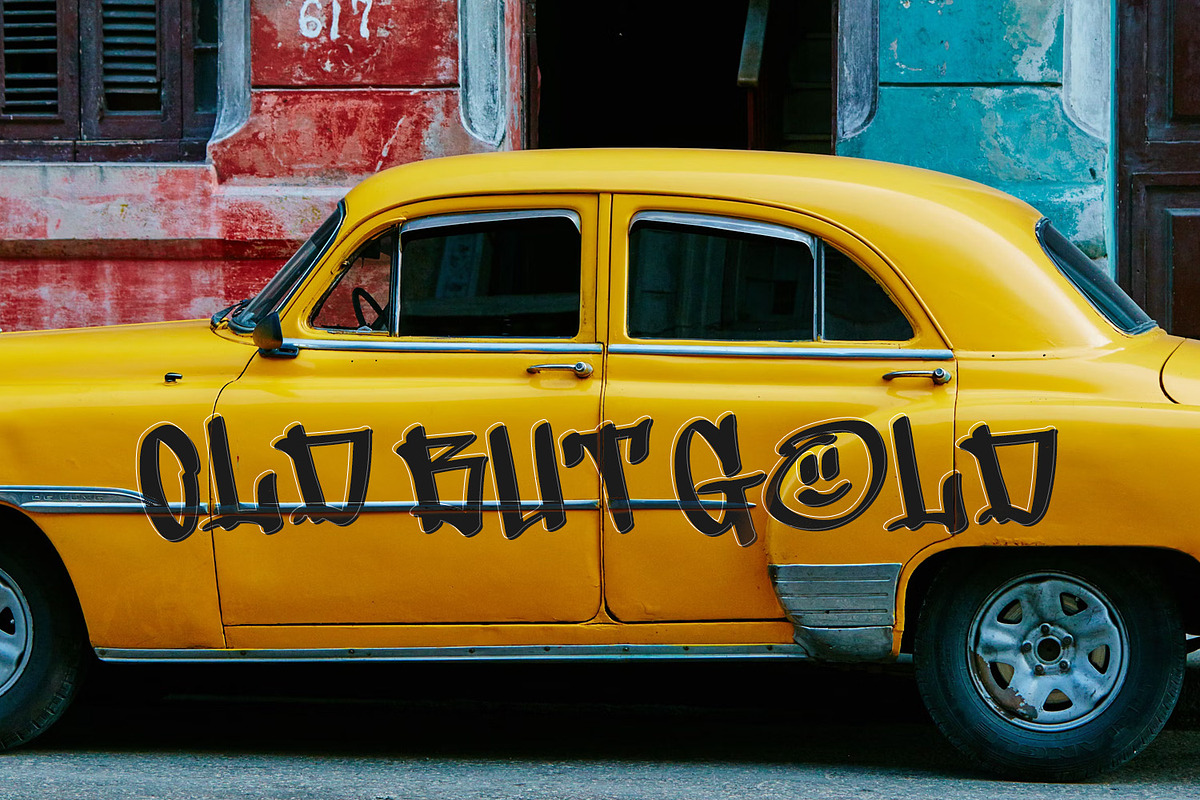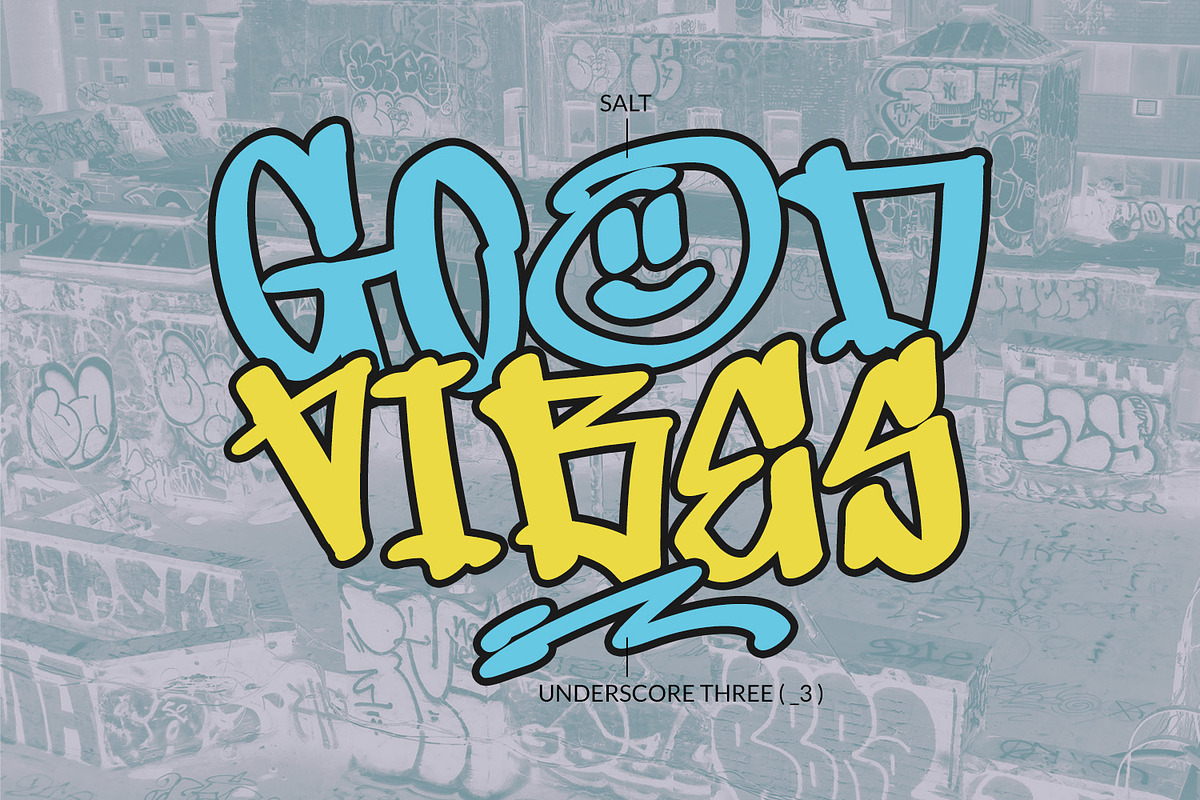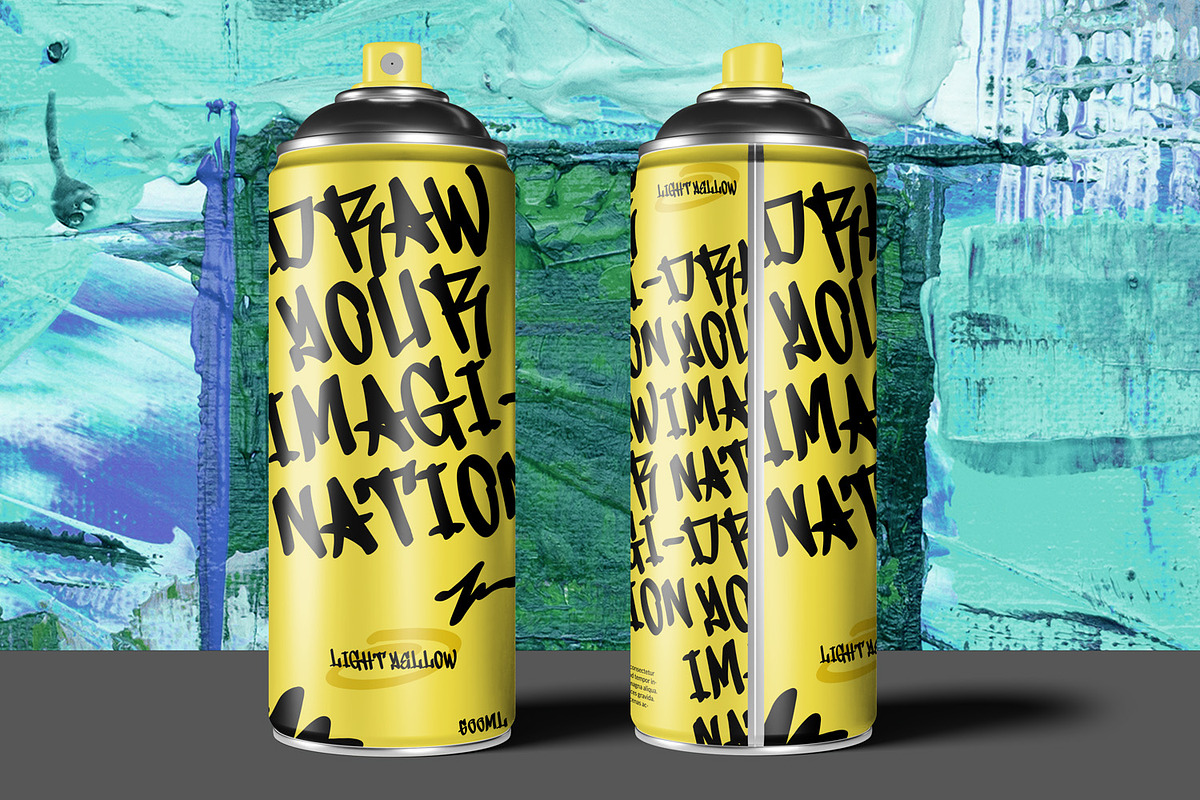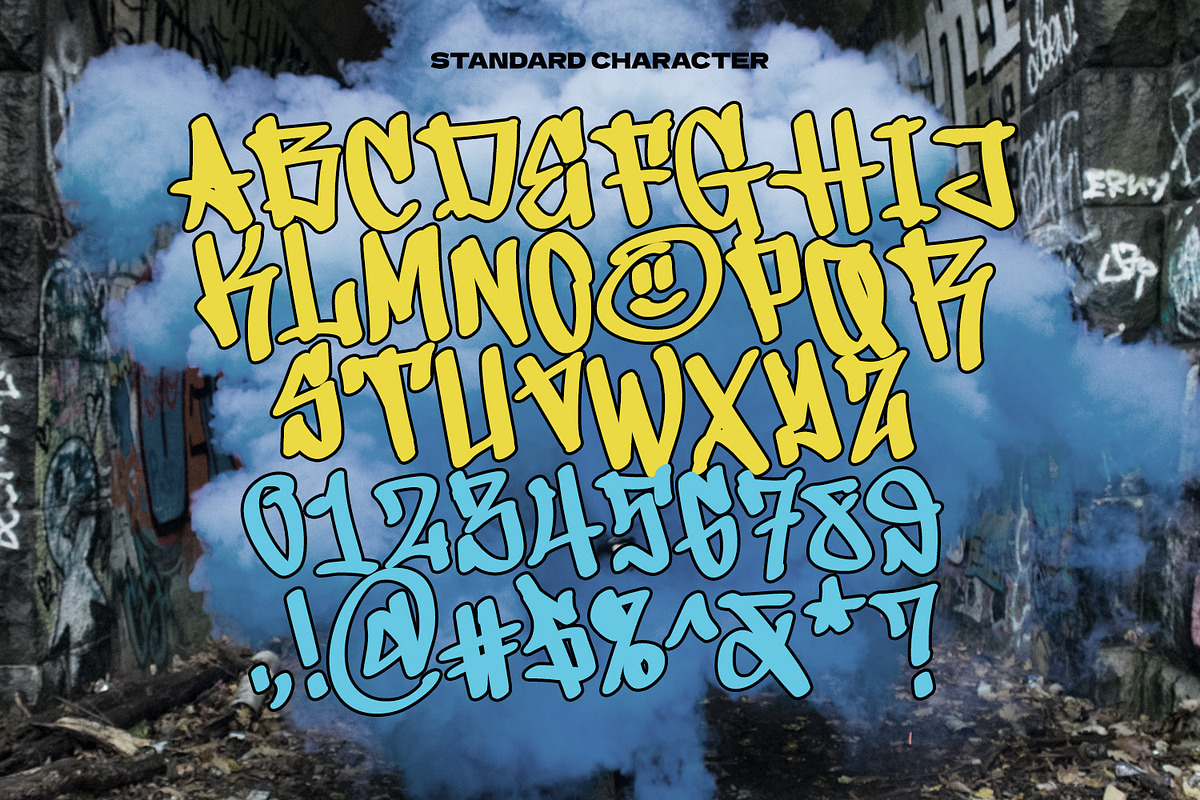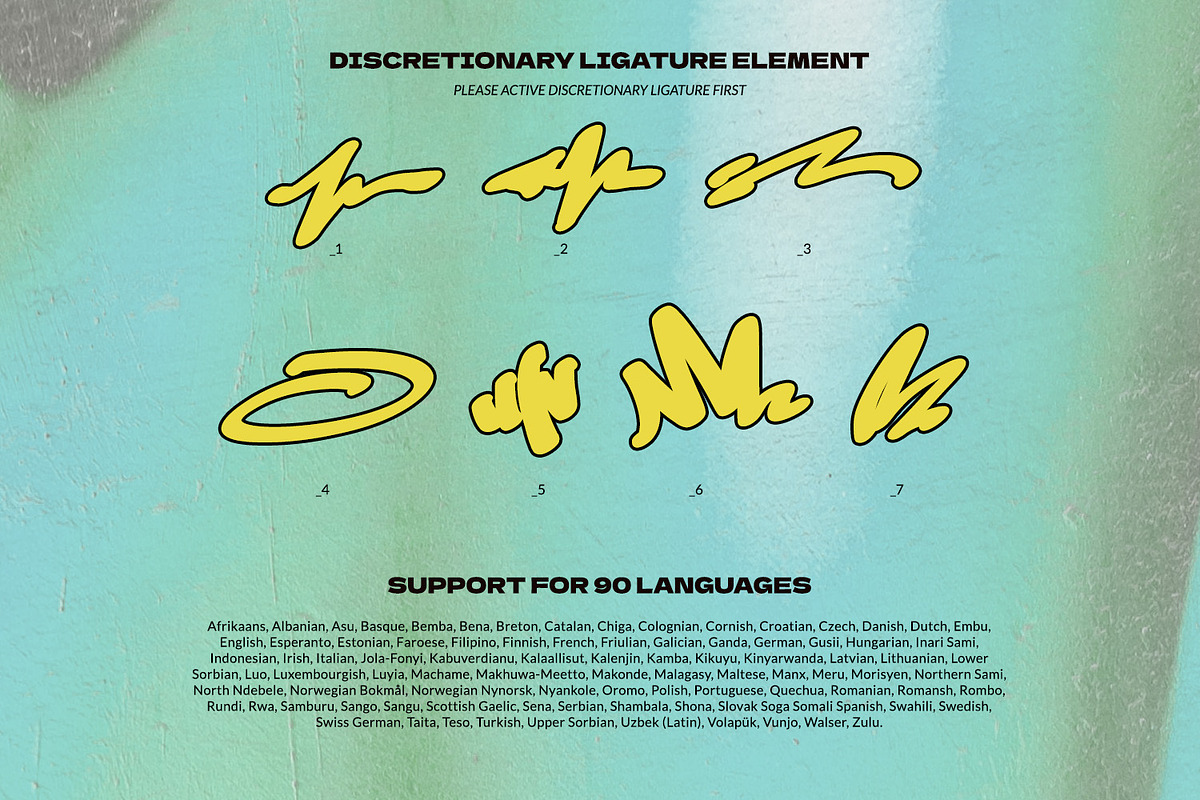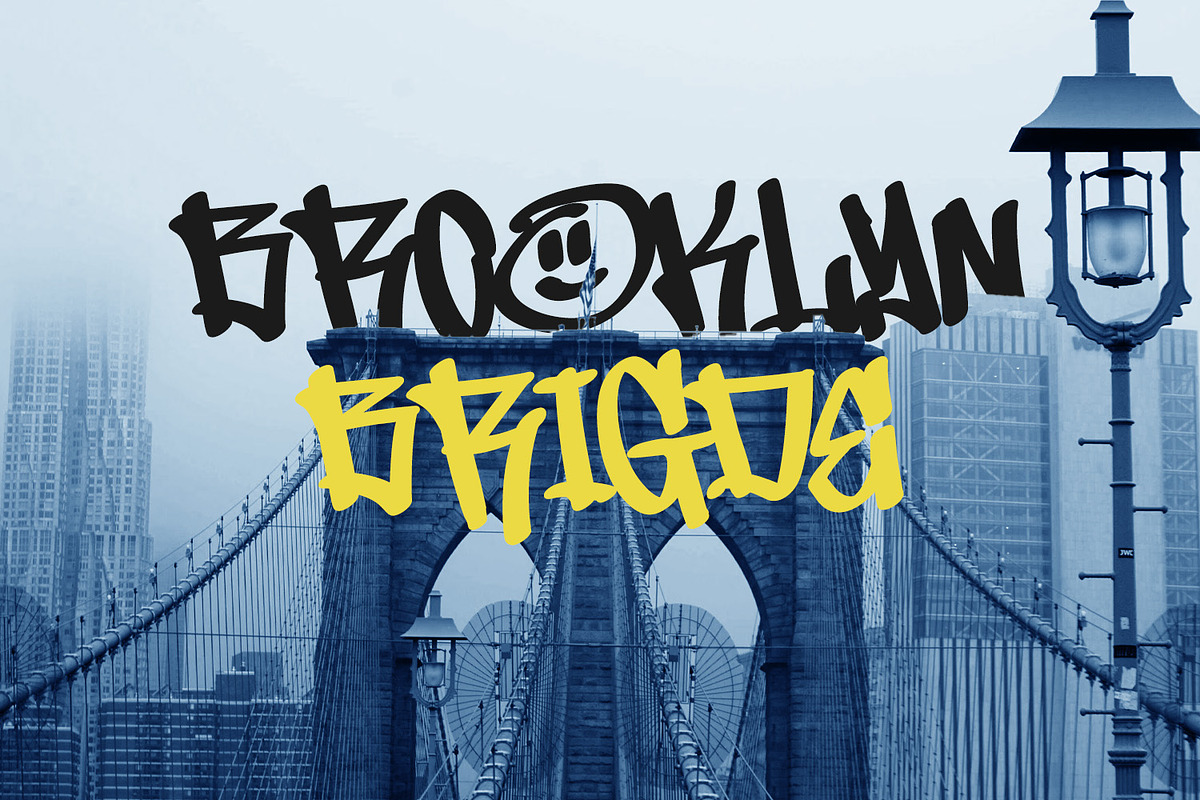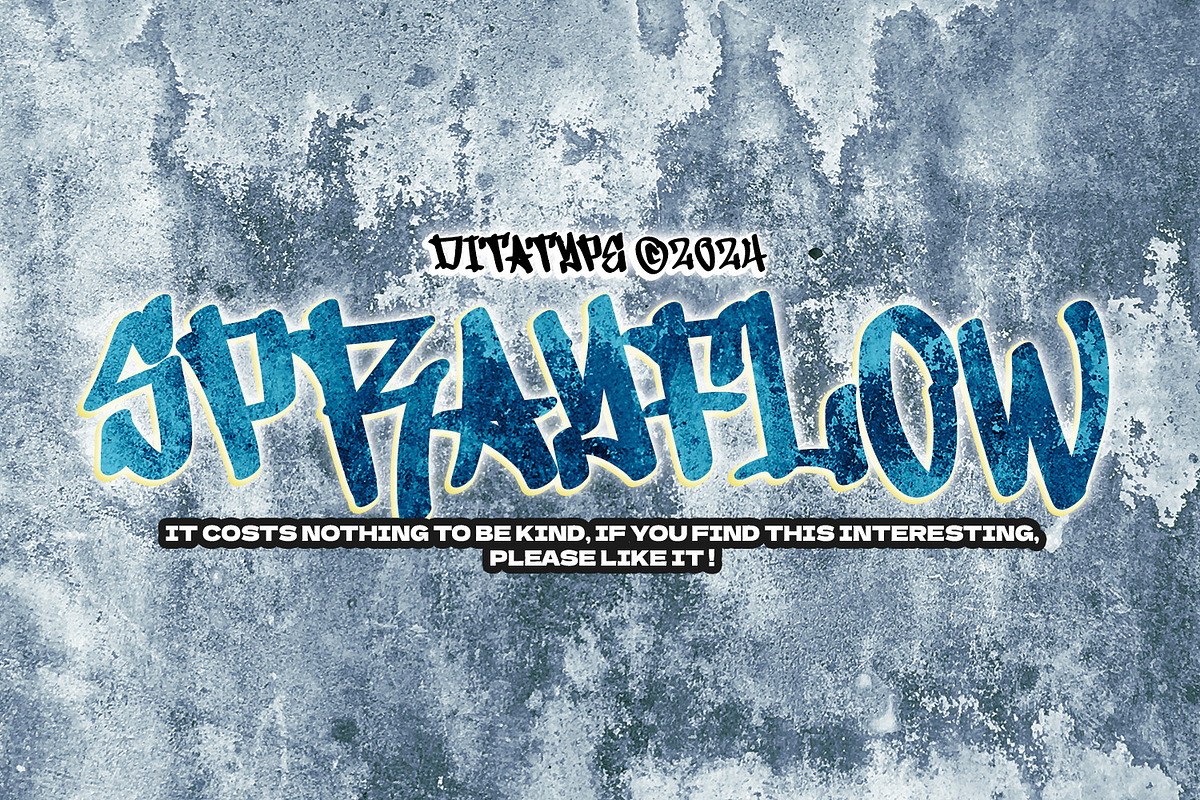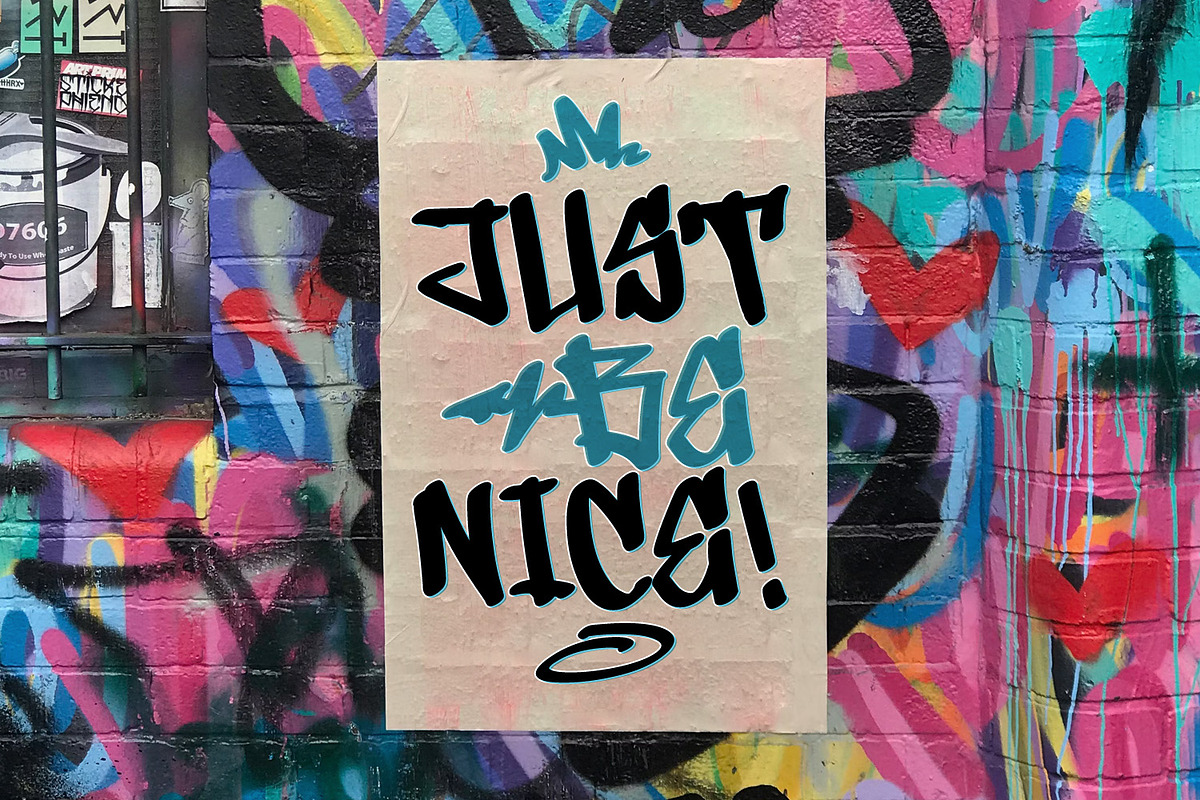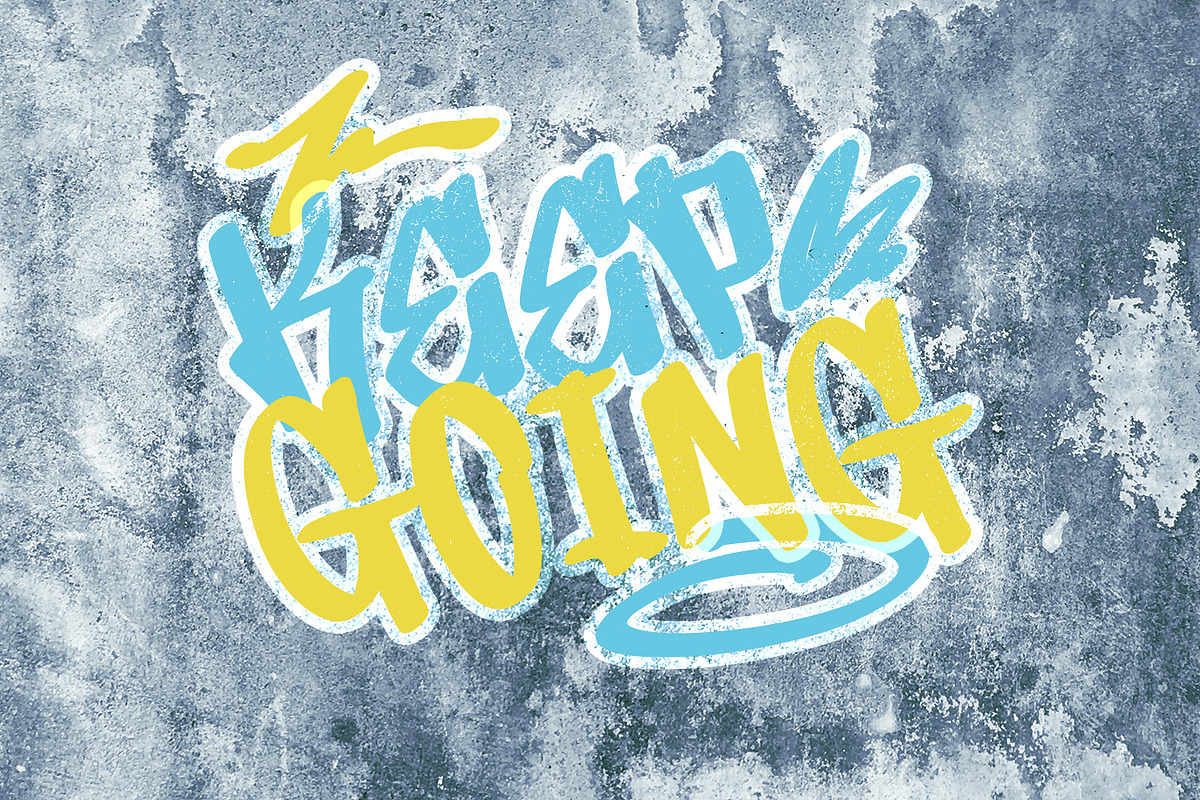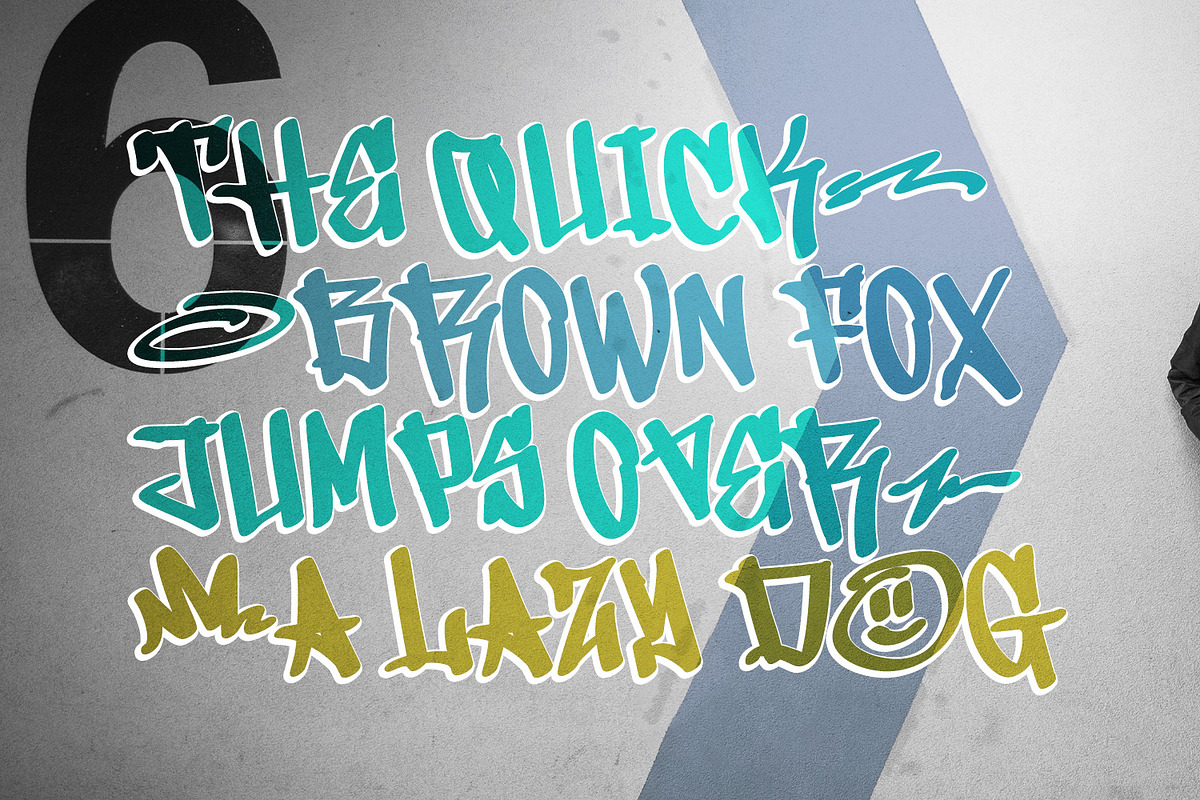
Sprayflow
Sprayflow is a bold, all-caps graffiti font that radiates an urban edge. With its fairly sharp angles and consistent proportions, this typeface delivers a dynamic punch to any design. Perfect for street art-inspired projects, Sprayflow adds a dose of modern, high-impact style that won’t be ignored. In addition, enjoy the features here.
Sprayflow fits in logos, posters, branding materials, print media, editorial layouts, and many more designs. Find out more ways to use this font by taking a look at the font preview.